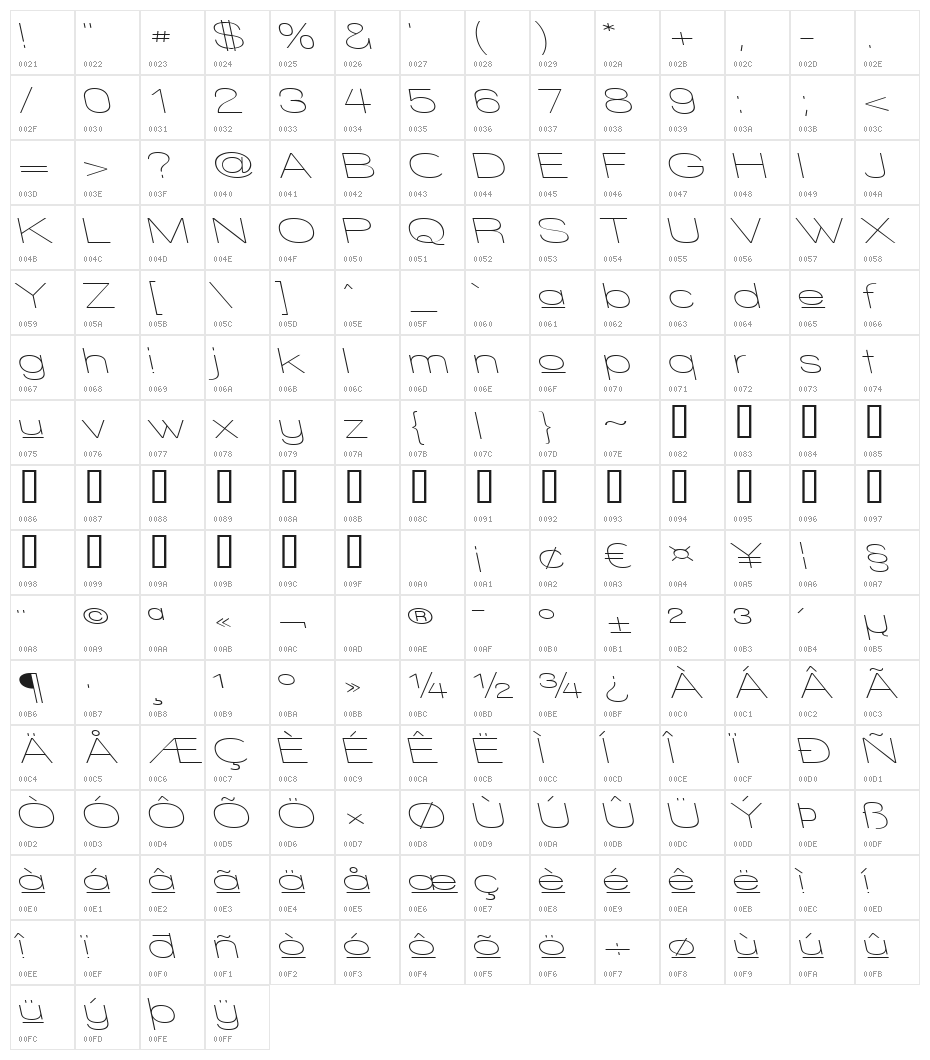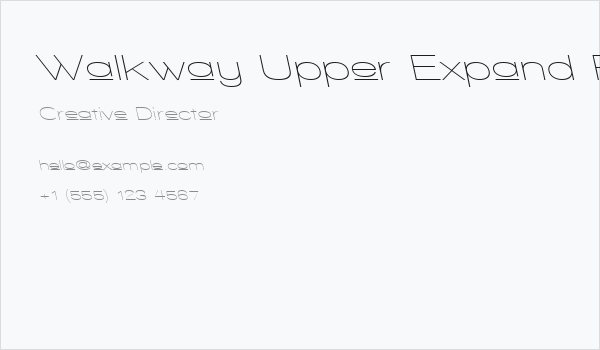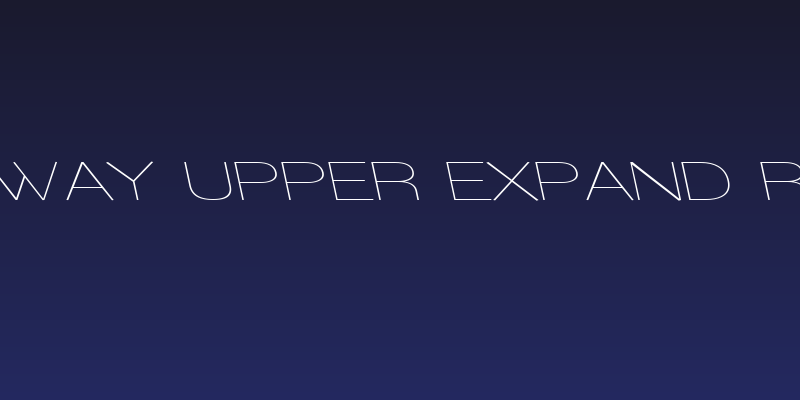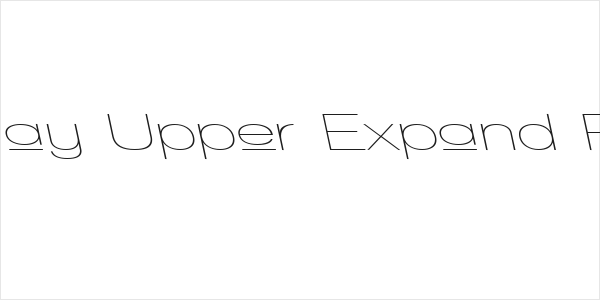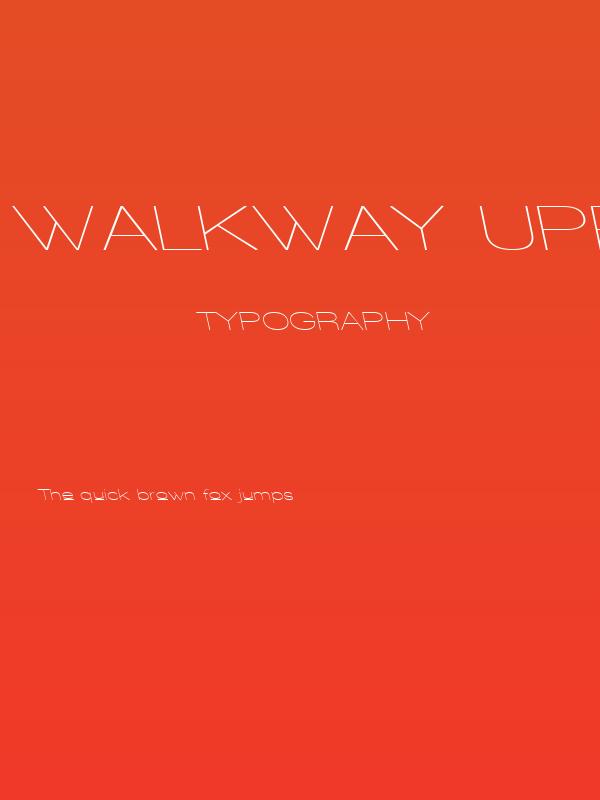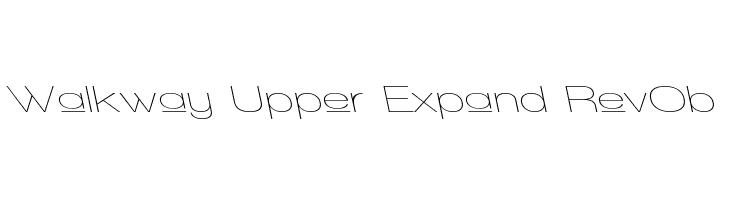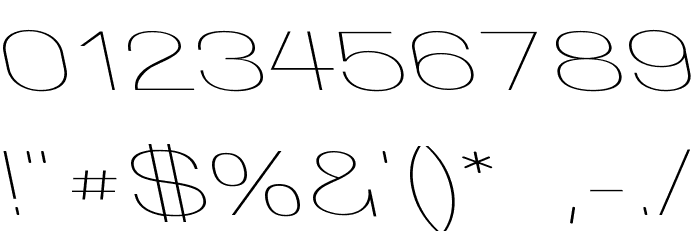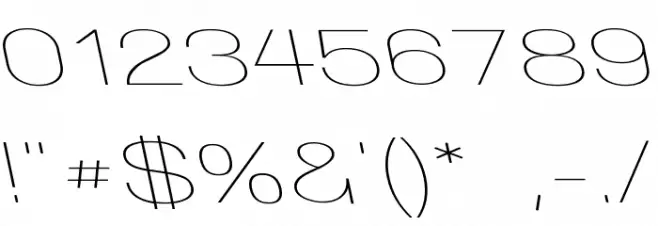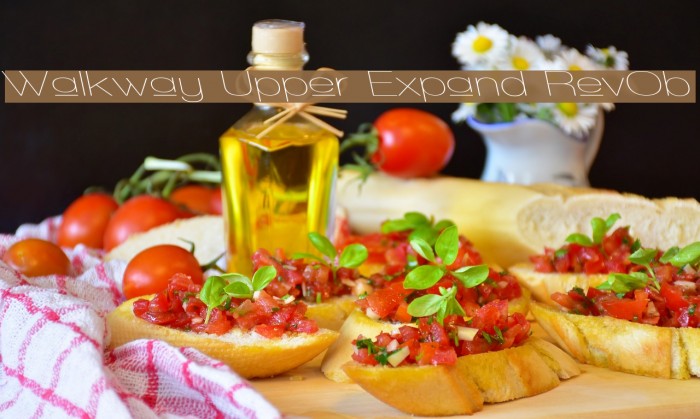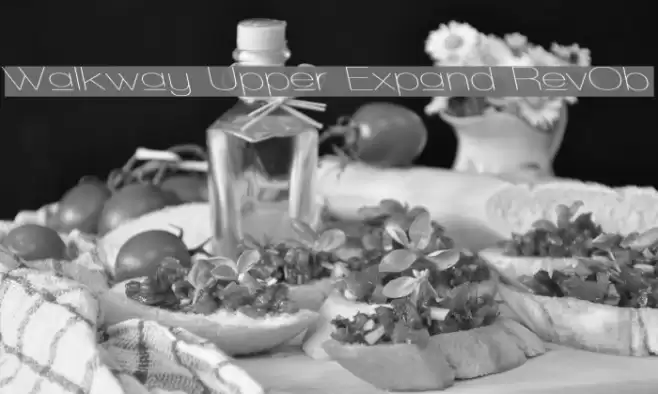
Walkway Upper Expand RevOb Font
This font features a modern and minimalist design with clean, geometric lines. The characters are constructed with a consistent stroke width, giving it a sleek and contemporary appearance. The uppercase and lowercase letters maintain a uniform height, contributing to a cohesive look. The numerals and special characters are designed to match the overall style, ensuring versatility across different uses. The font's simplicity and elegance make it suitable for a wide range of applications, from branding to digital interfaces.
| Use Case | Headlines, Logos, Digital Interfaces |
| Proposed Projects | Ideal for branding, digital interfaces, modern advertising, and minimalist design projects. |